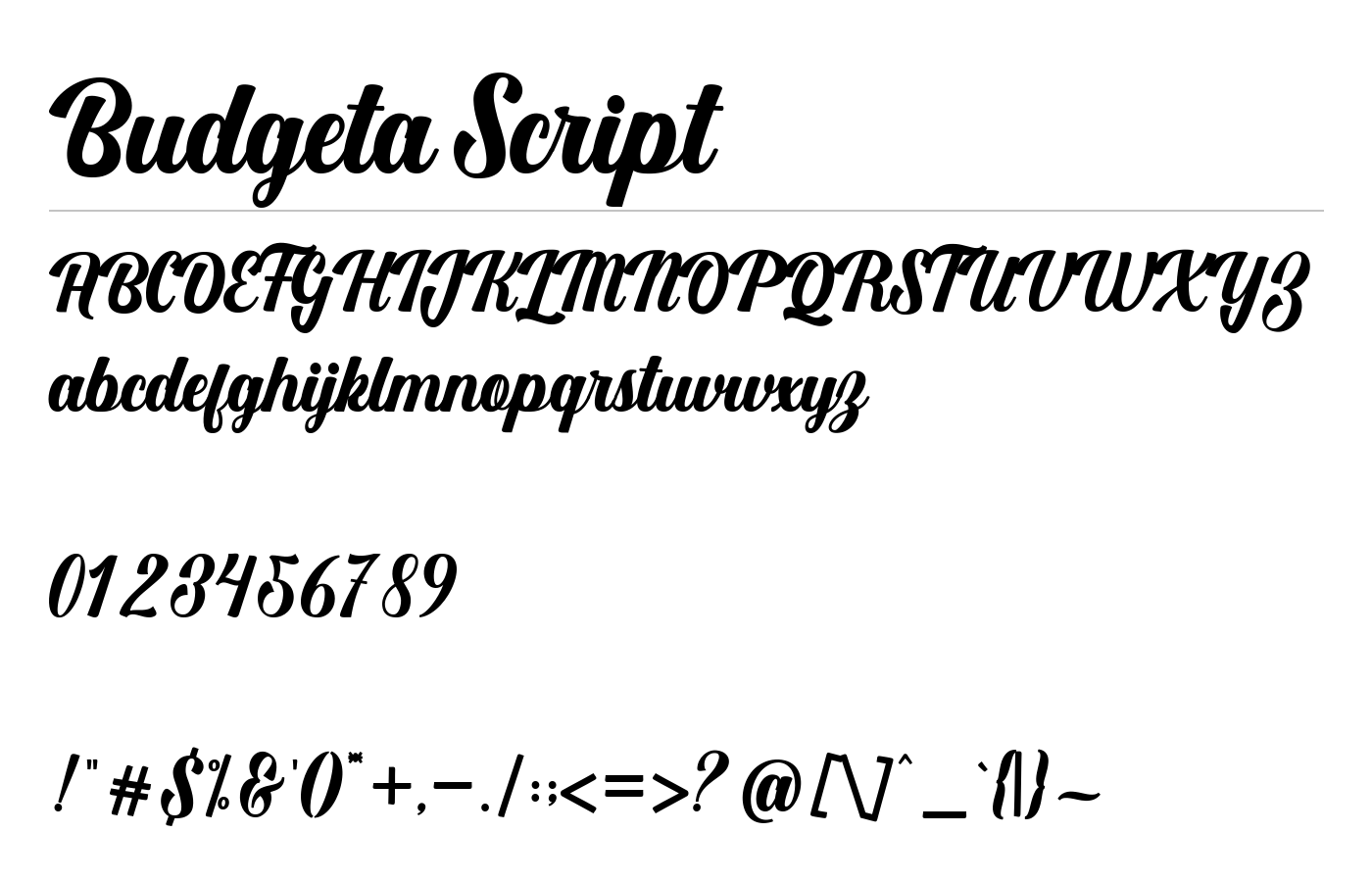
Budgeta Script is a bold, modern script font with smooth, flowing strokes and a strong presence. Its slightly condensed letterforms and balanced contrast give it an elegant yet approachable feel, making it ideal for branding, invitations, and headlines that want to convey warmth and style. This font shines in creative projects where a touch of personality and sophistication is desired.
Budgeta Script Font